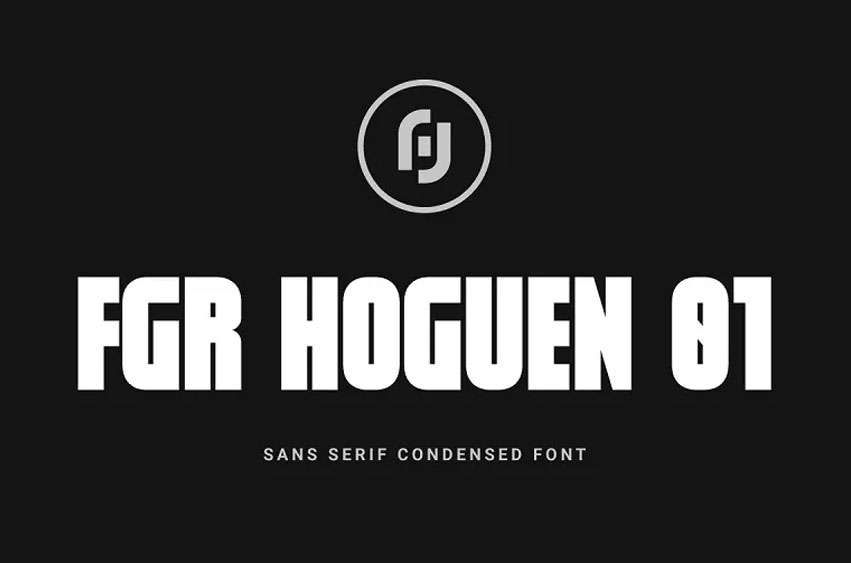
Fgr Hoguen 01 Font
Fgr Hoguen 01 Font is modern, professional yet clean sans-serif font with a bold feel to it. It is characterized by a simple geometric form and symmetrical proportions which allows it to be used effectively in both the screen and printed page without compromising on readability and effectiveness.
Thanks to its universal design and refined look, Fgr Hoguen 01 offers a timeless elegance that will work well in any context and will be equally legible in print and on screen.